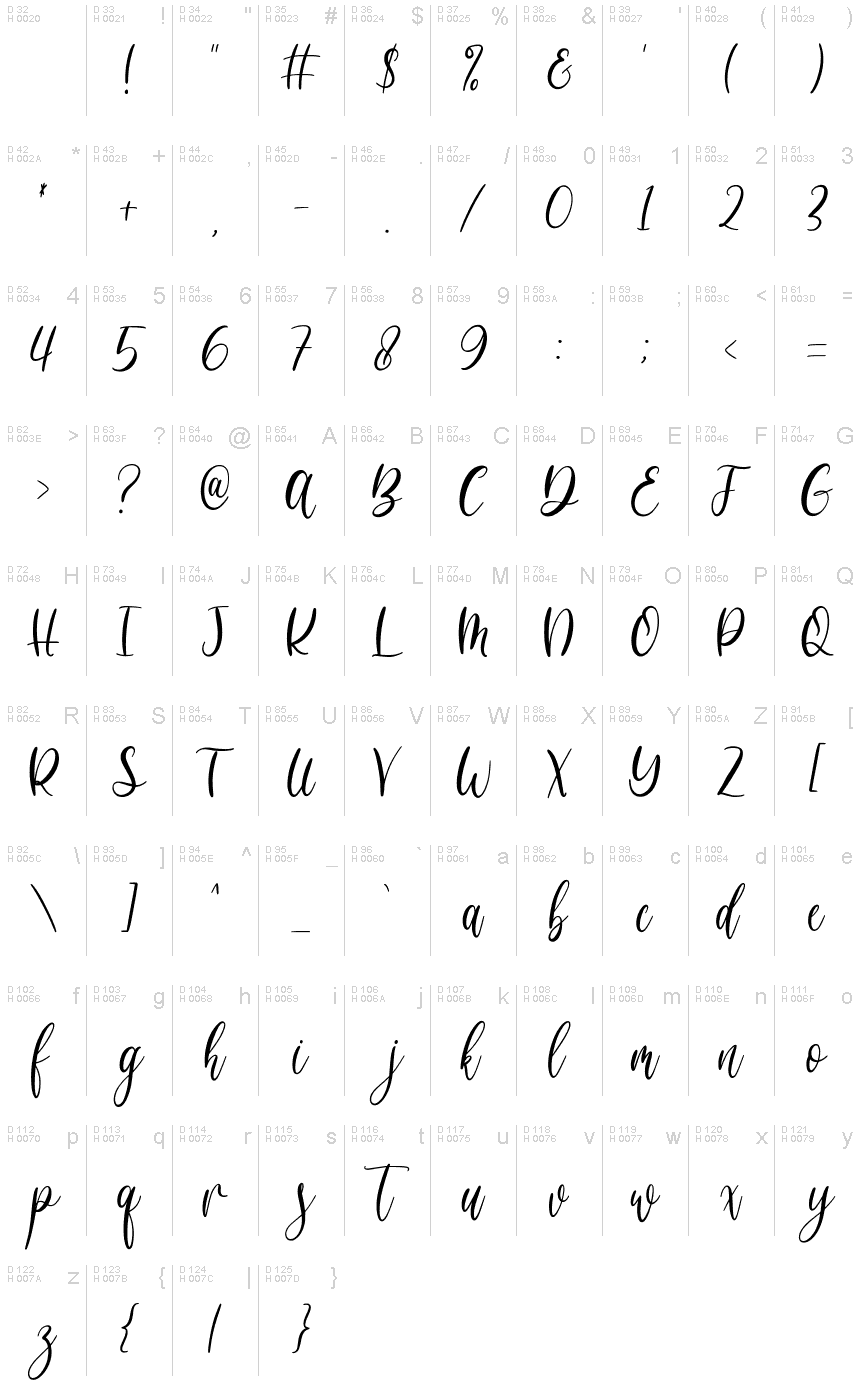
Brittishfeel
Brittishfeel, the stunning calligraphy typeface from Qwrtype Foundry, is a semi-light font that exudes elegance with its semi-condensed width. Perfect for wedding invitations and elegant branding projects, Brittishfeel adds an air of sophistication to any design. Its flowing strokes and graceful curves make it the ideal choice for luxury product packaging or high-end restaurant menus. With its timeless appeal and versatile use, Brittishfeel is a must-have font for any designer looking to add a touch of class to their project.